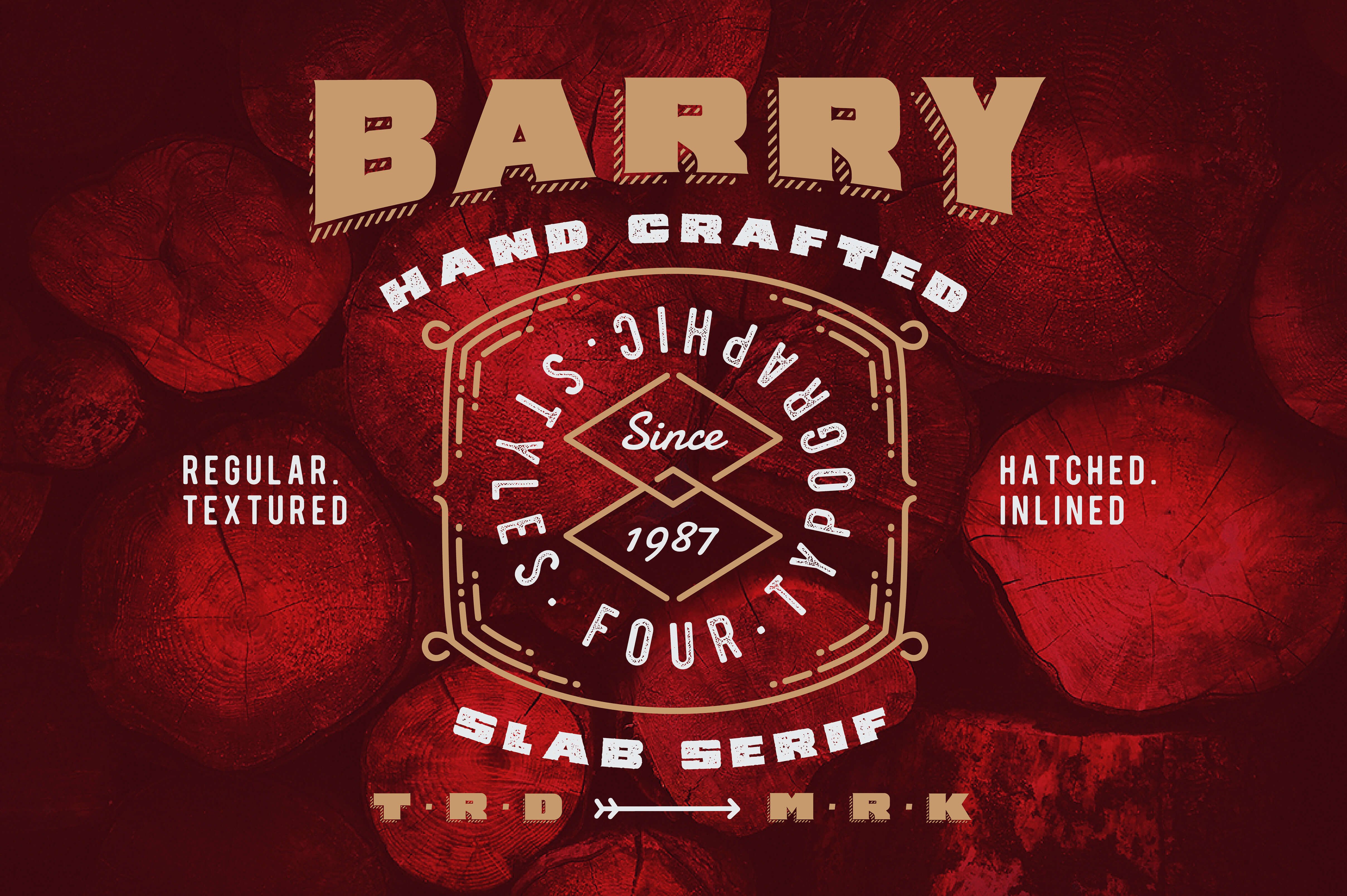
Barry – 4 Font Styles + Bonus
Barry is a pretty cool character. He’s often seen with four of his best buds, Regular, Textured, Hatched & Inlined. Each with their own unique styles.